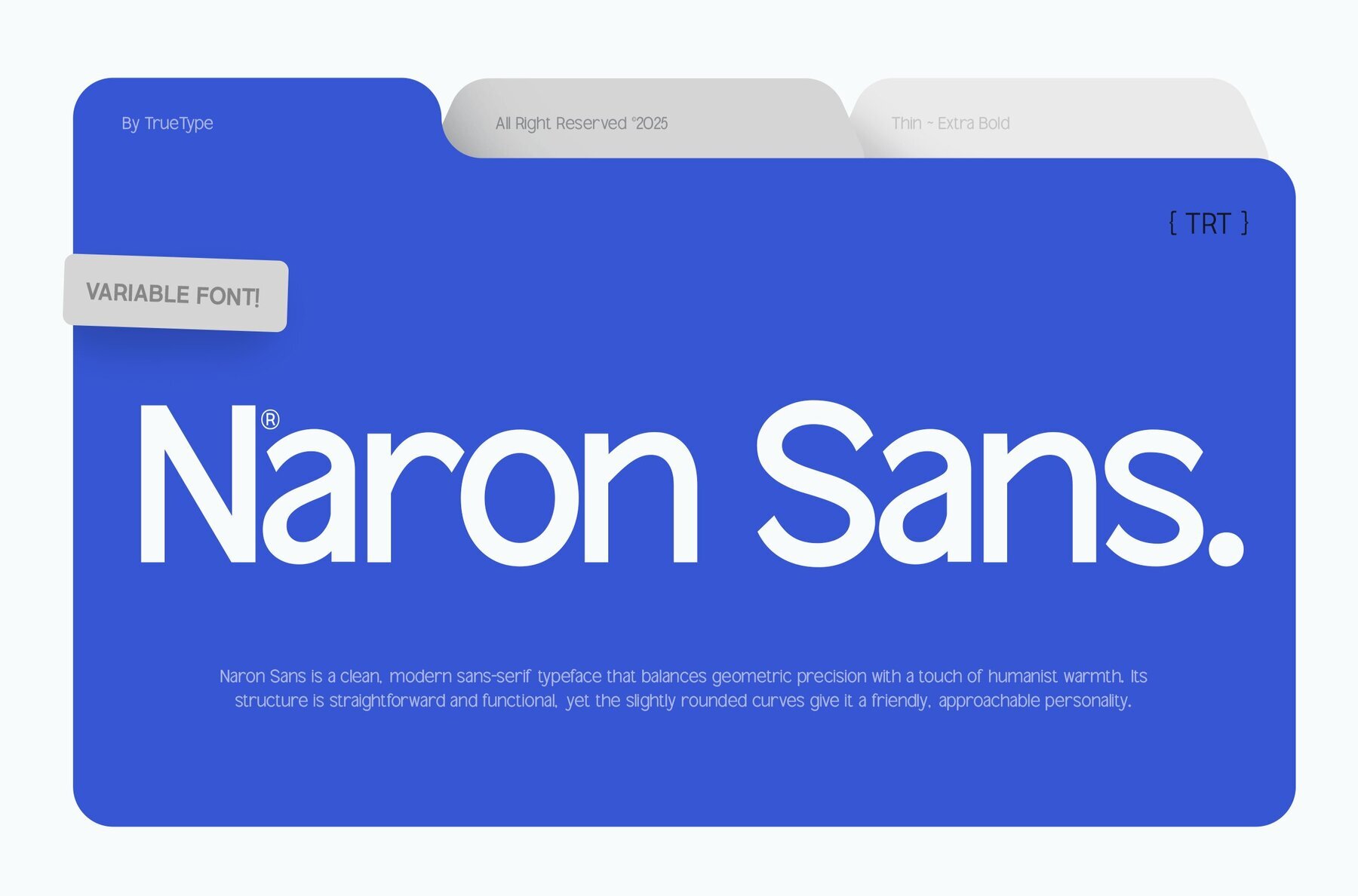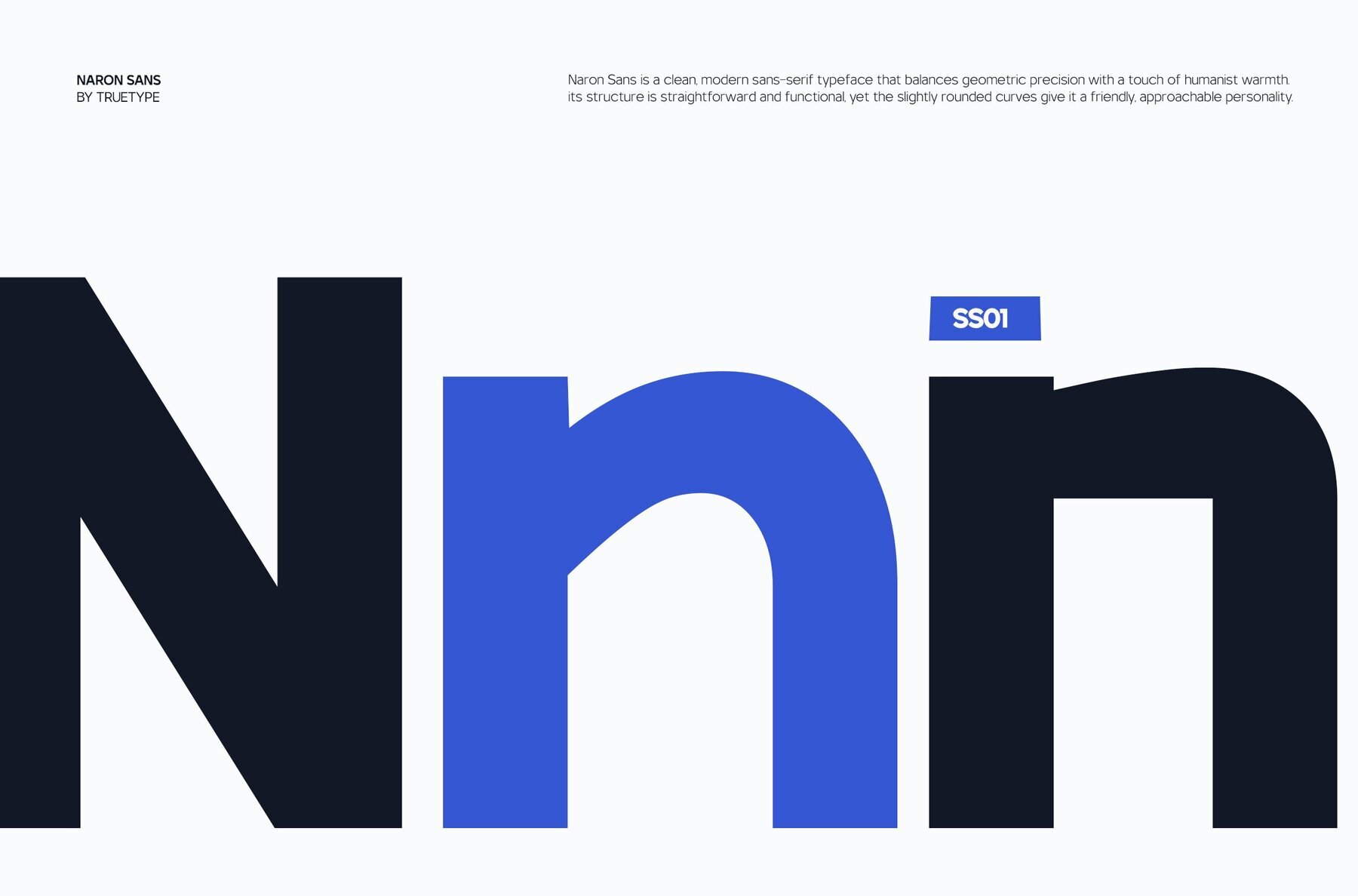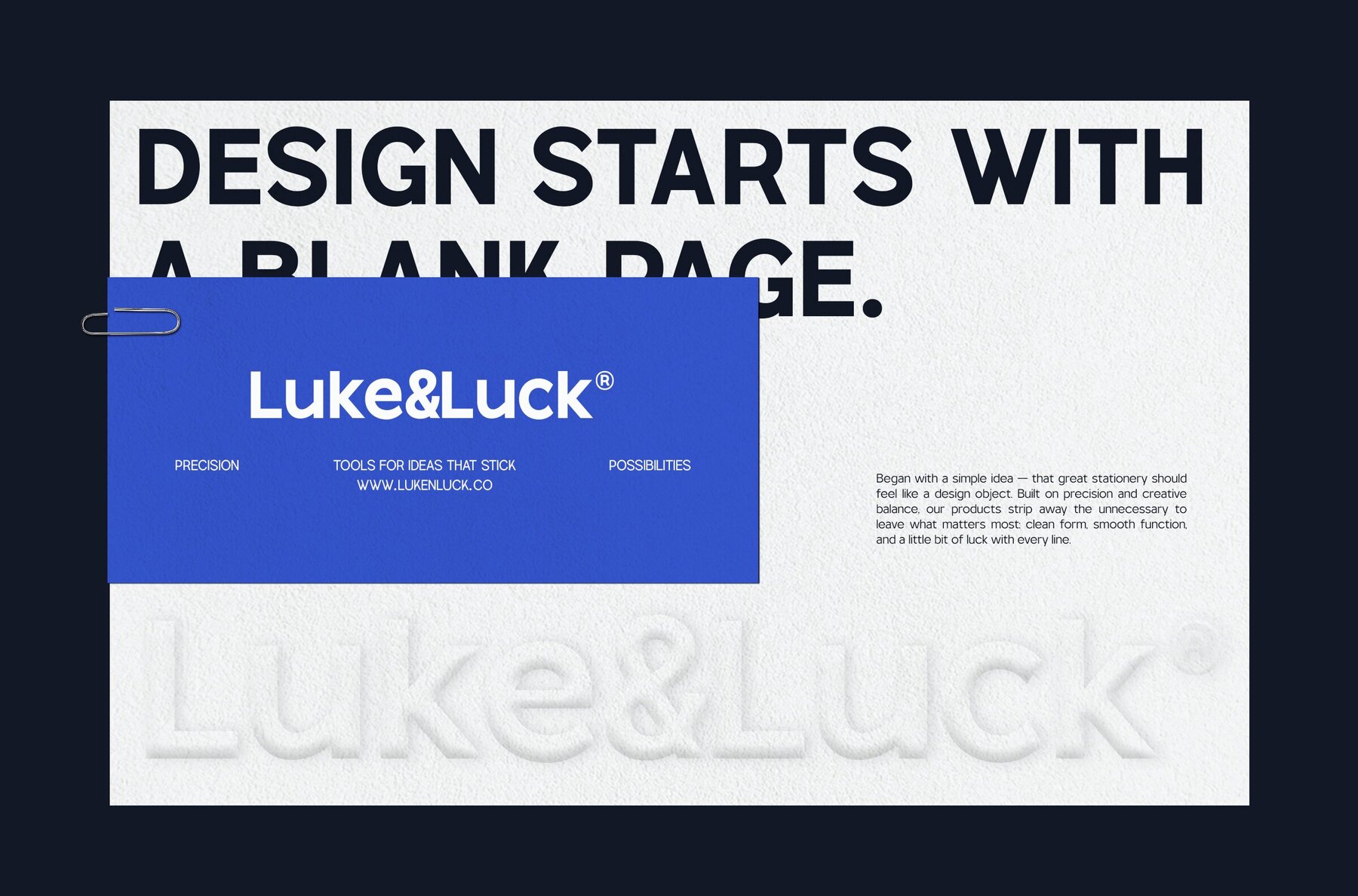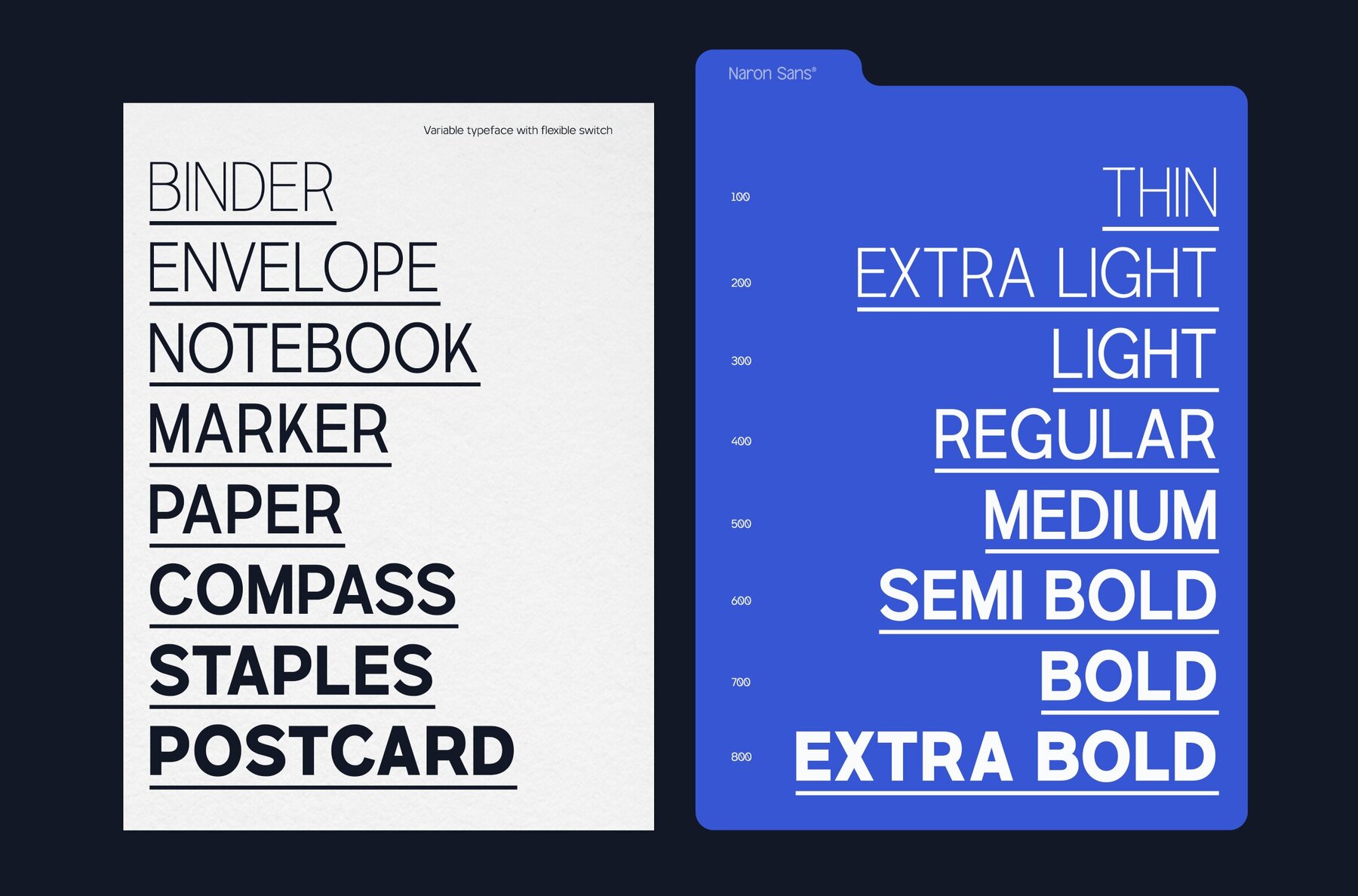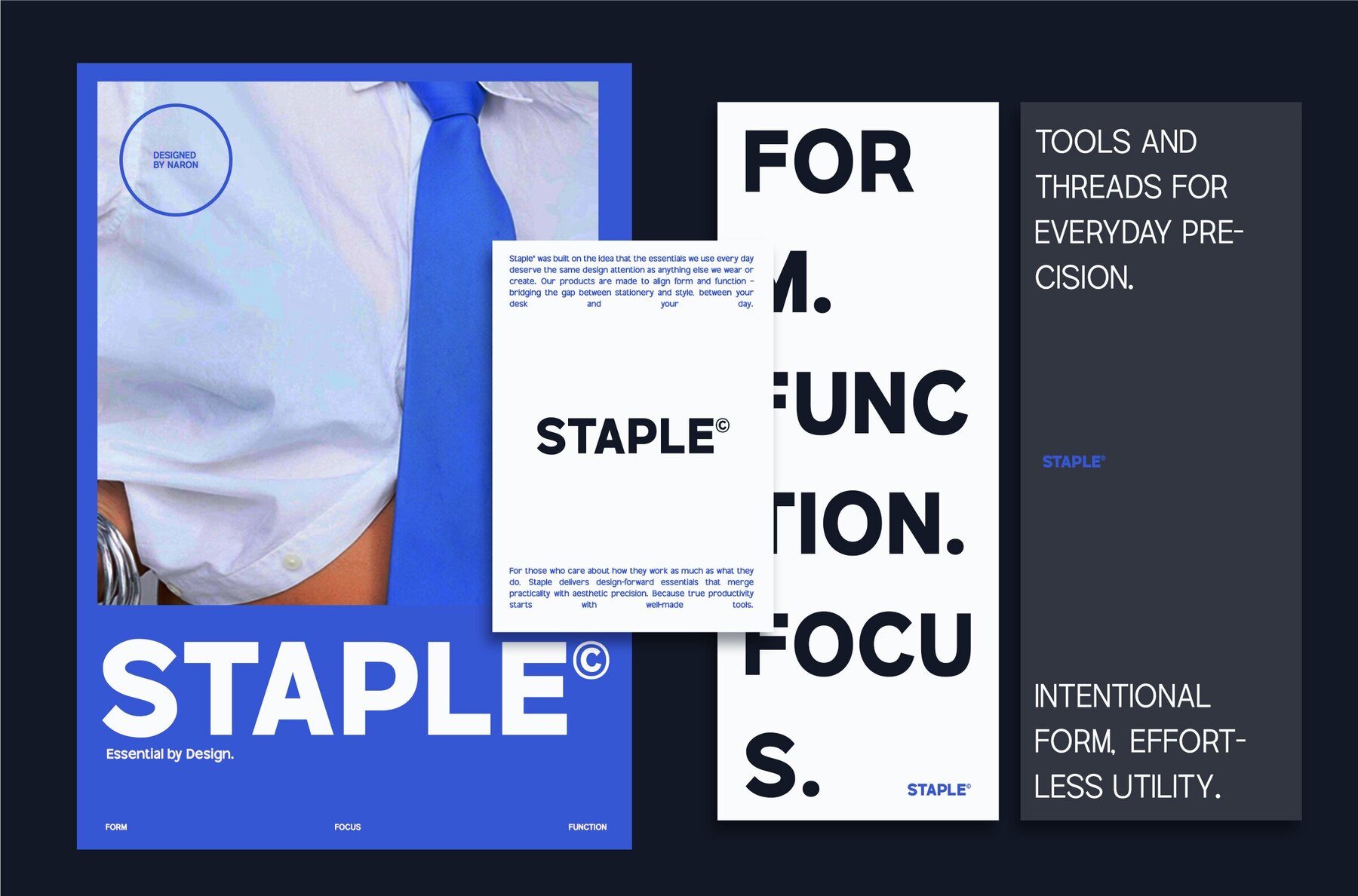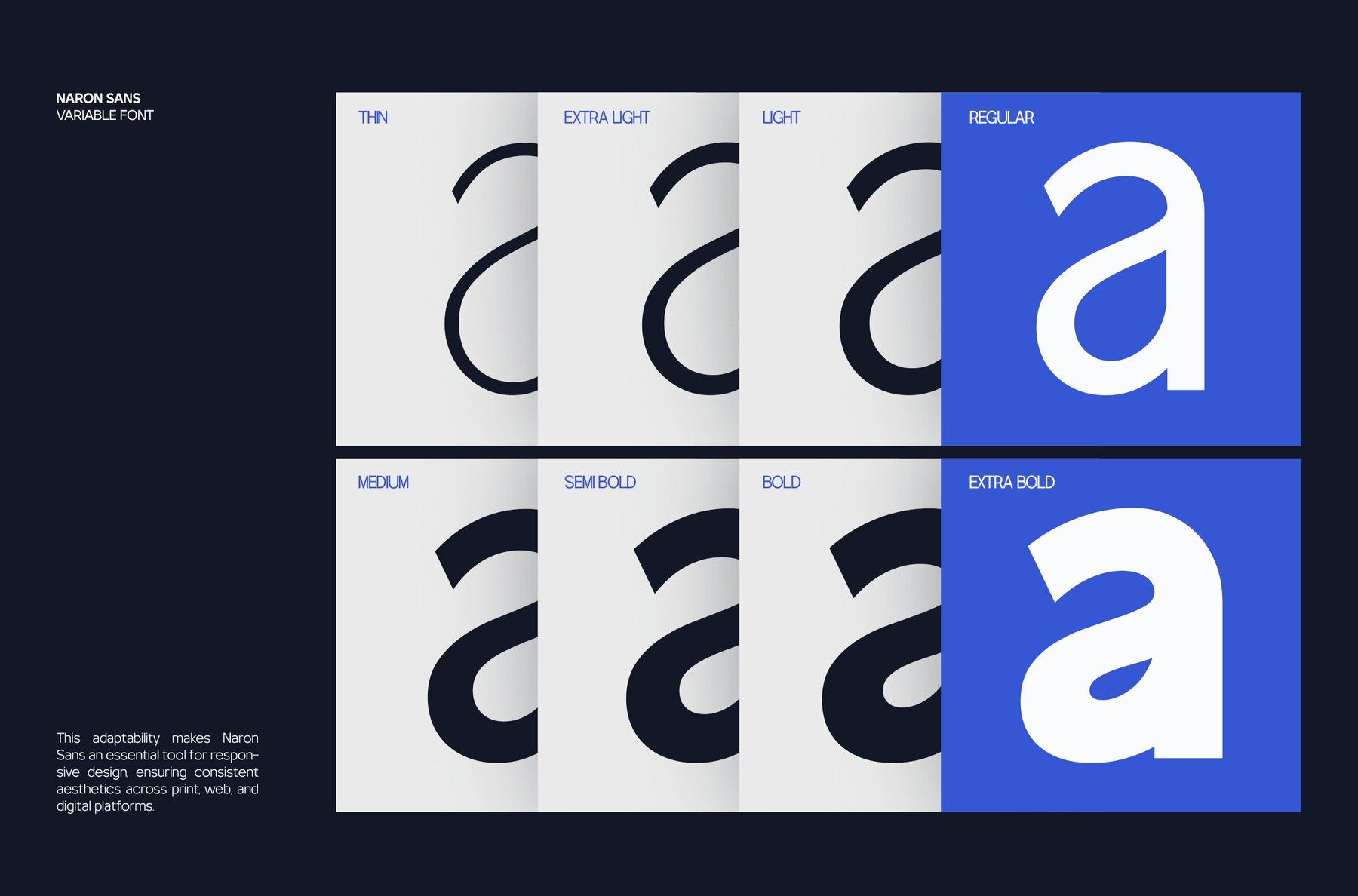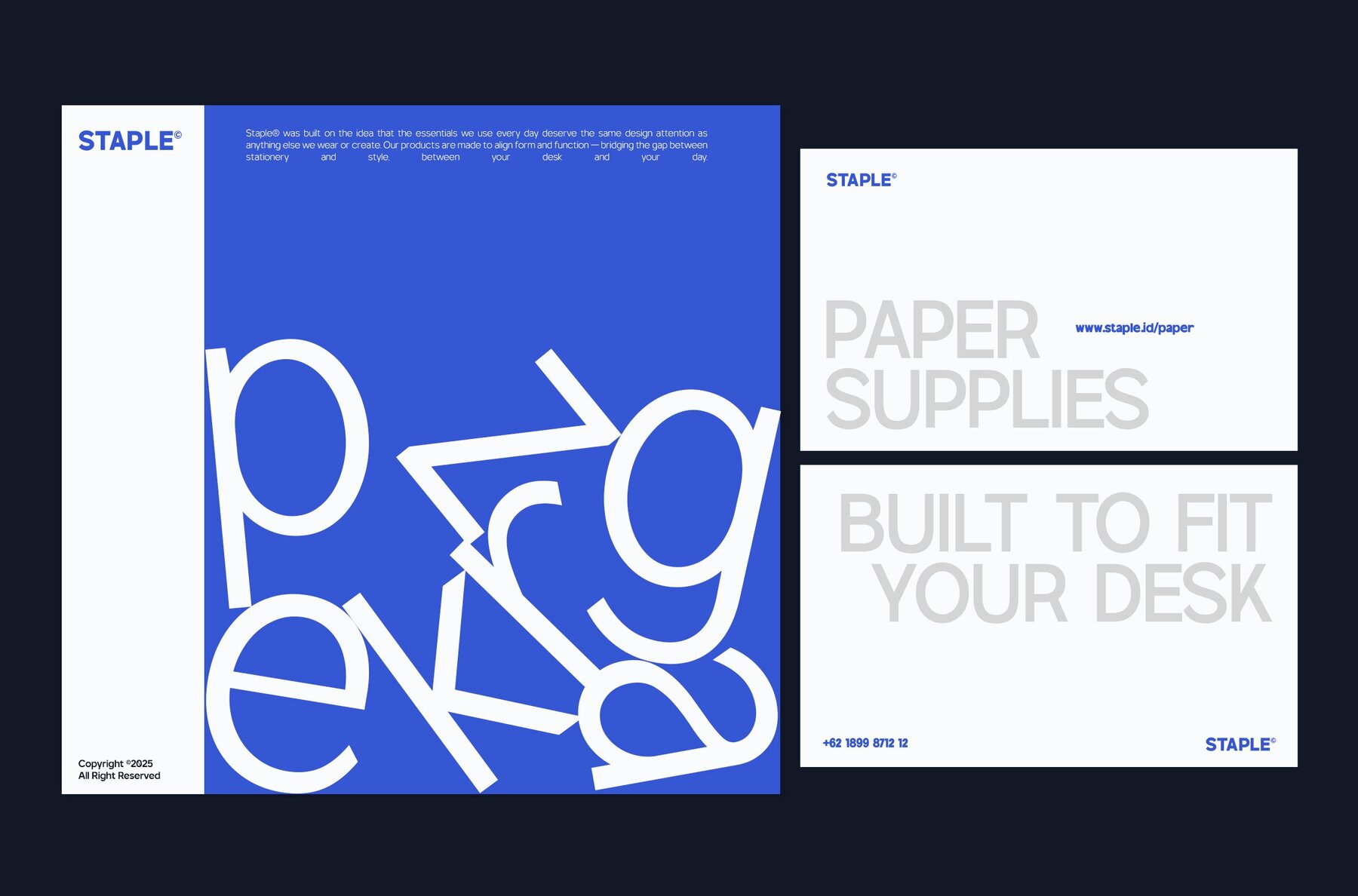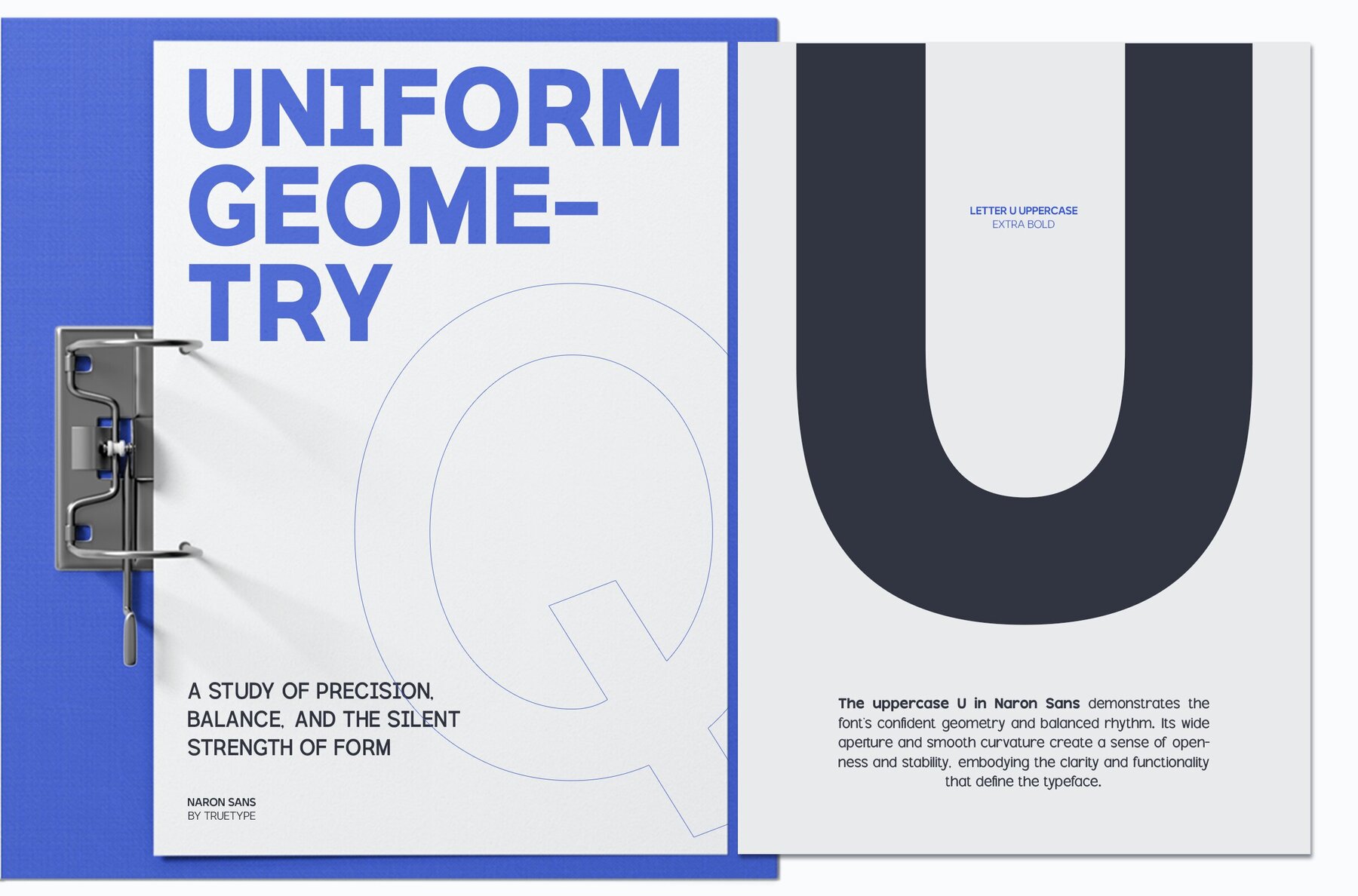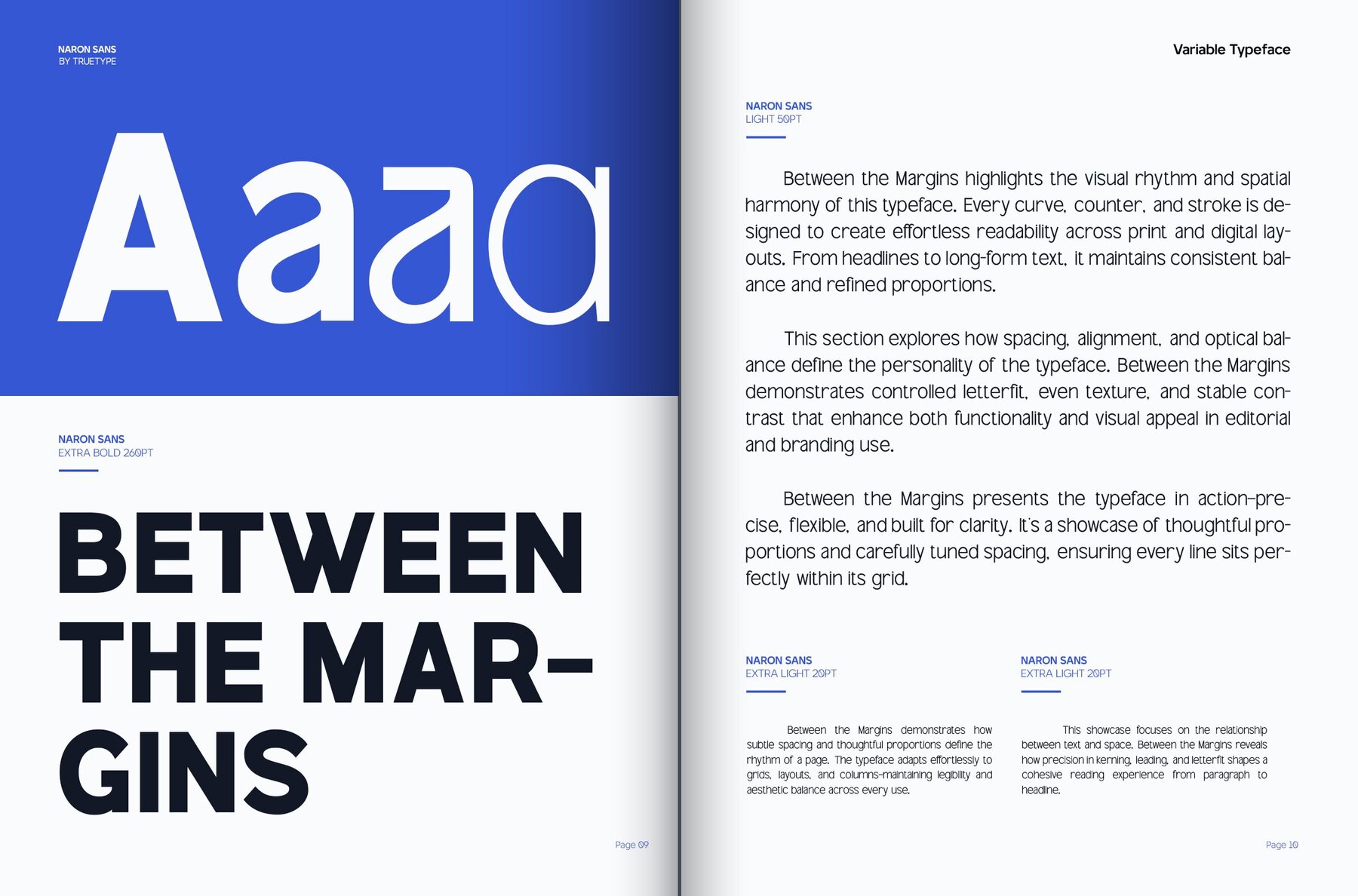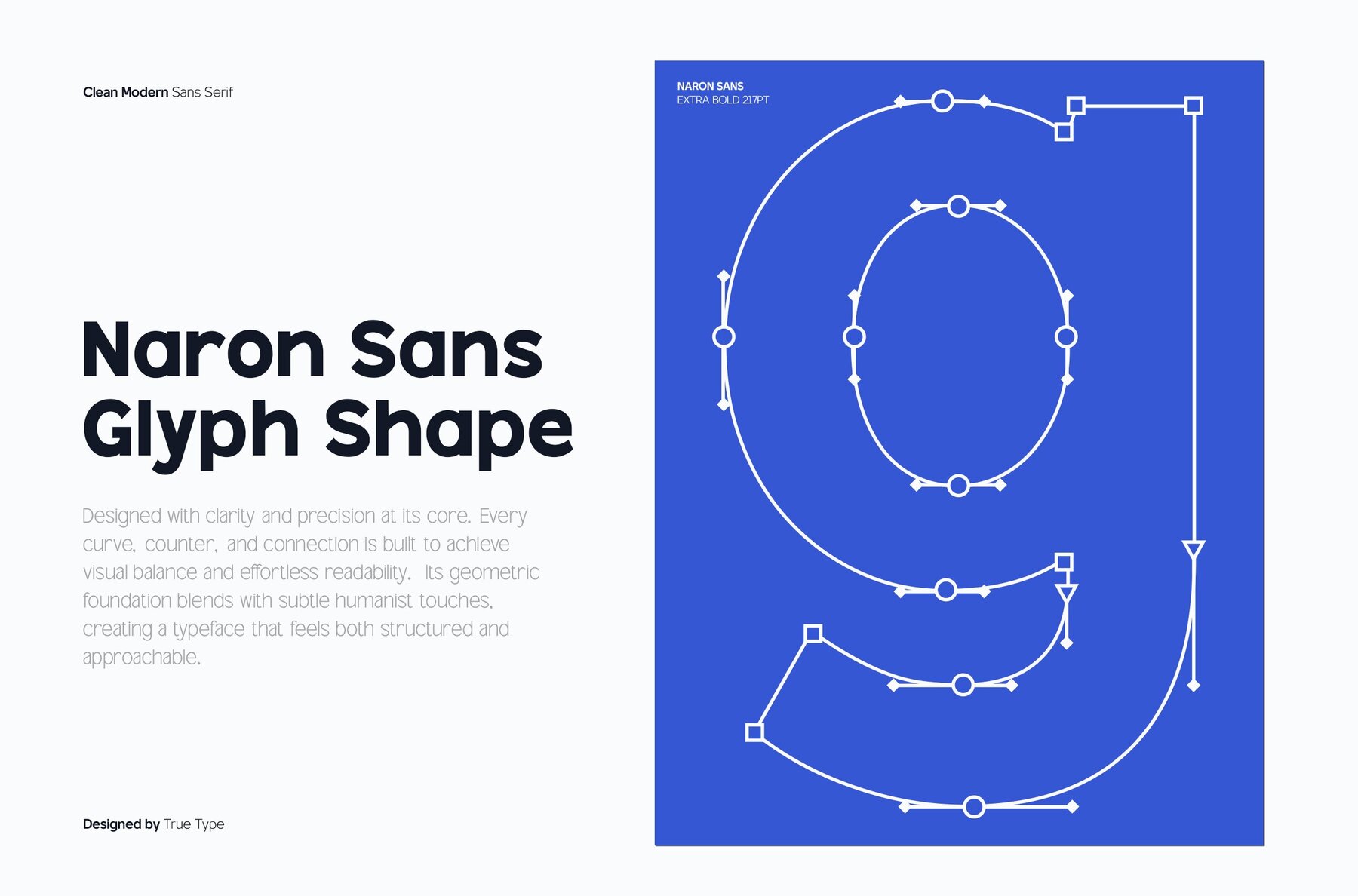
TRT Naron Font
TRT Naron is a bold and modern sans serif typeface, rooted in semi-grotesque tradition yet reimagined for today's visual language. With its clean geometry, confident curves, and subtle humanist touches, TRT Naron achieves a harmonious balance between clarity and personality. Designed for versatility, TRT Naron shines in a range of design applications, from digital interfaces and editorial layouts to impactful branding and bold display use. Its consistent rhythm and strong forms ensure readability in both large and small sizes. Unique ligatures and refined letterforms provide a distinctive visual voice. Ideal for building a tech brand, designing UI/UX content, or creating modern packaging, TRT Naron delivers a professional edge. This typeface is a toolkit for expressive, modern typography.TRT Naron: Contemporary Sans Serif Typeface